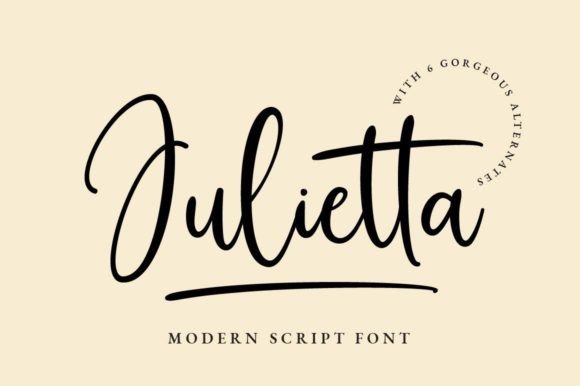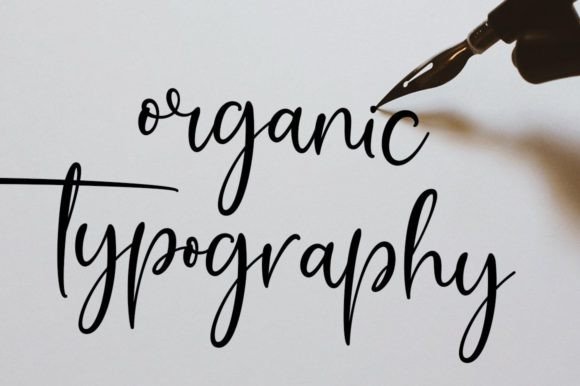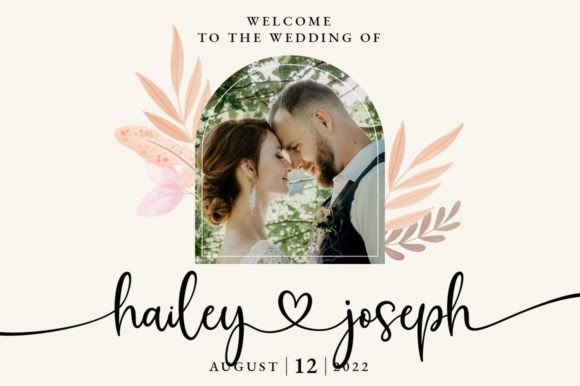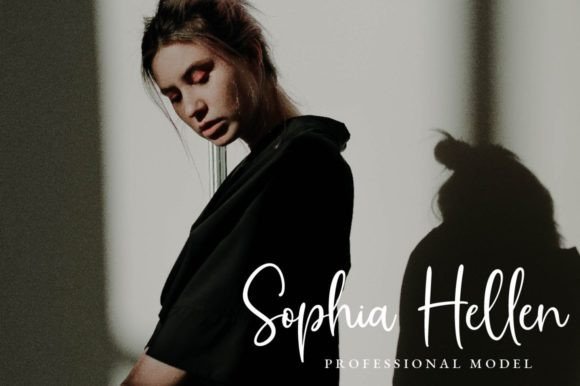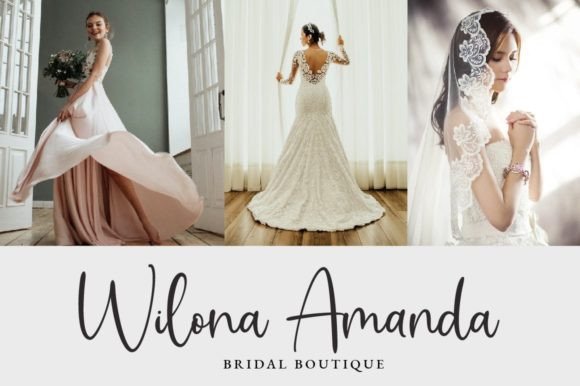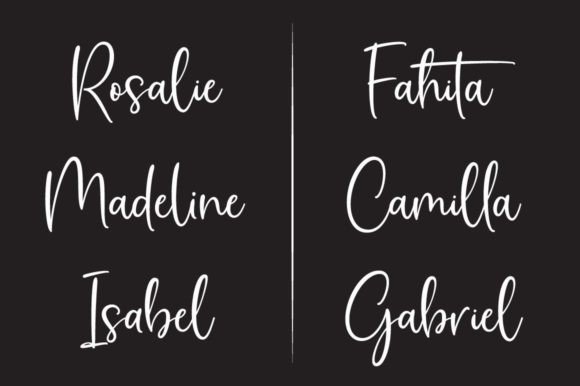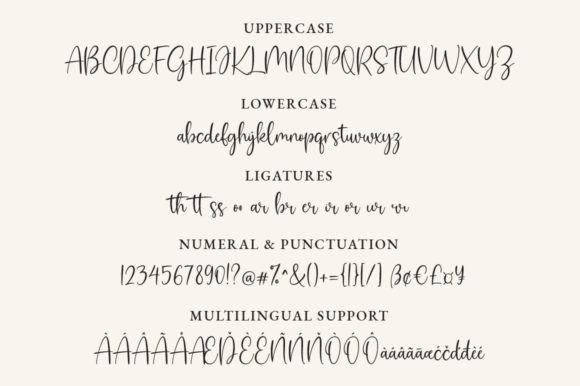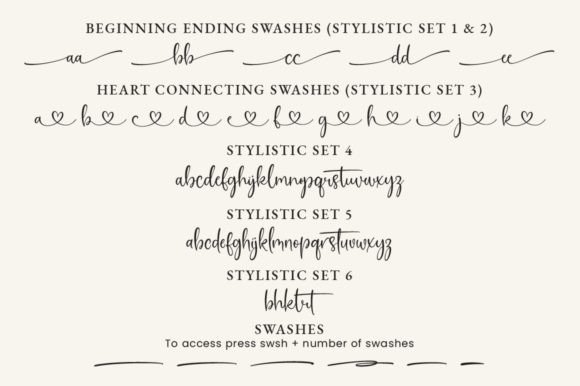
Julietta Font
About Julietta Font
Julietta is a contemporary script font characterized by its smooth handwritten flows and elegant design. This font offers a seamless and fluid appearance, making it perfect for a variety of creative projects. Its versatility allows it to shine in applications such as logos, wedding stationery, cards, gift designs, photography, watermarks, product packaging, and handwritten quotes.
The font’s graceful curves and gentle strokes exude a sense of sophistication and style, making it ideal for projects that require a touch of elegance. Whether you’re designing a wedding invitation, creating a unique logo, or adding a personal touch to your photography, Julietta’s modern script style adds a layer of refinement to your text.
Julietta’s PUA encoding ensures easy access to all the glyphs and swashes, allowing you to customize and enhance your designs effortlessly. Embrace the fluidity and elegance of Julietta in your creative projects, and let its smooth handwritten flows elevate your work. Whether you’re designing for special events, professional branding, or personal expressions, this font is sure to bring a touch of sophistication and charm to your typography, making your creations visually appealing and memorable.